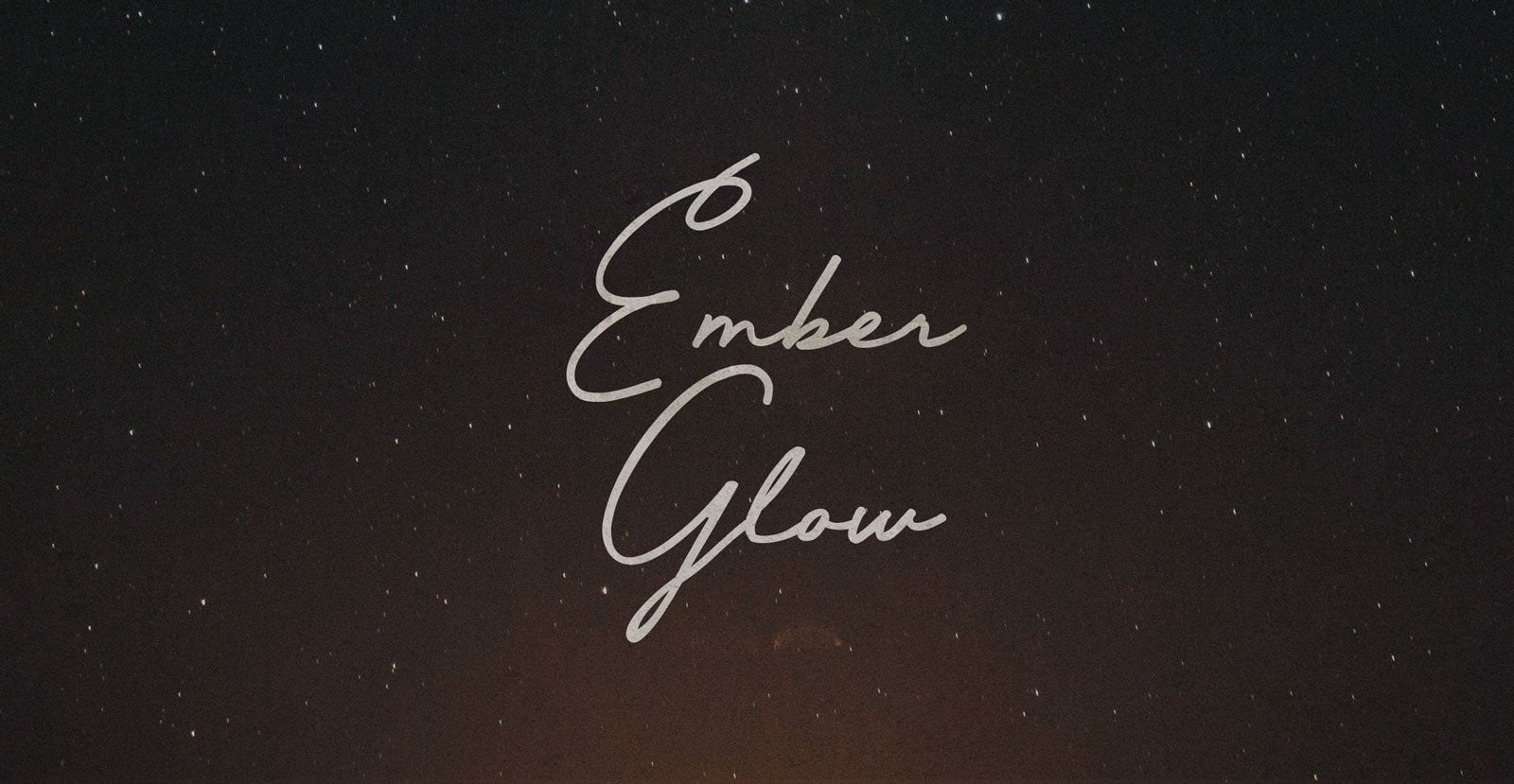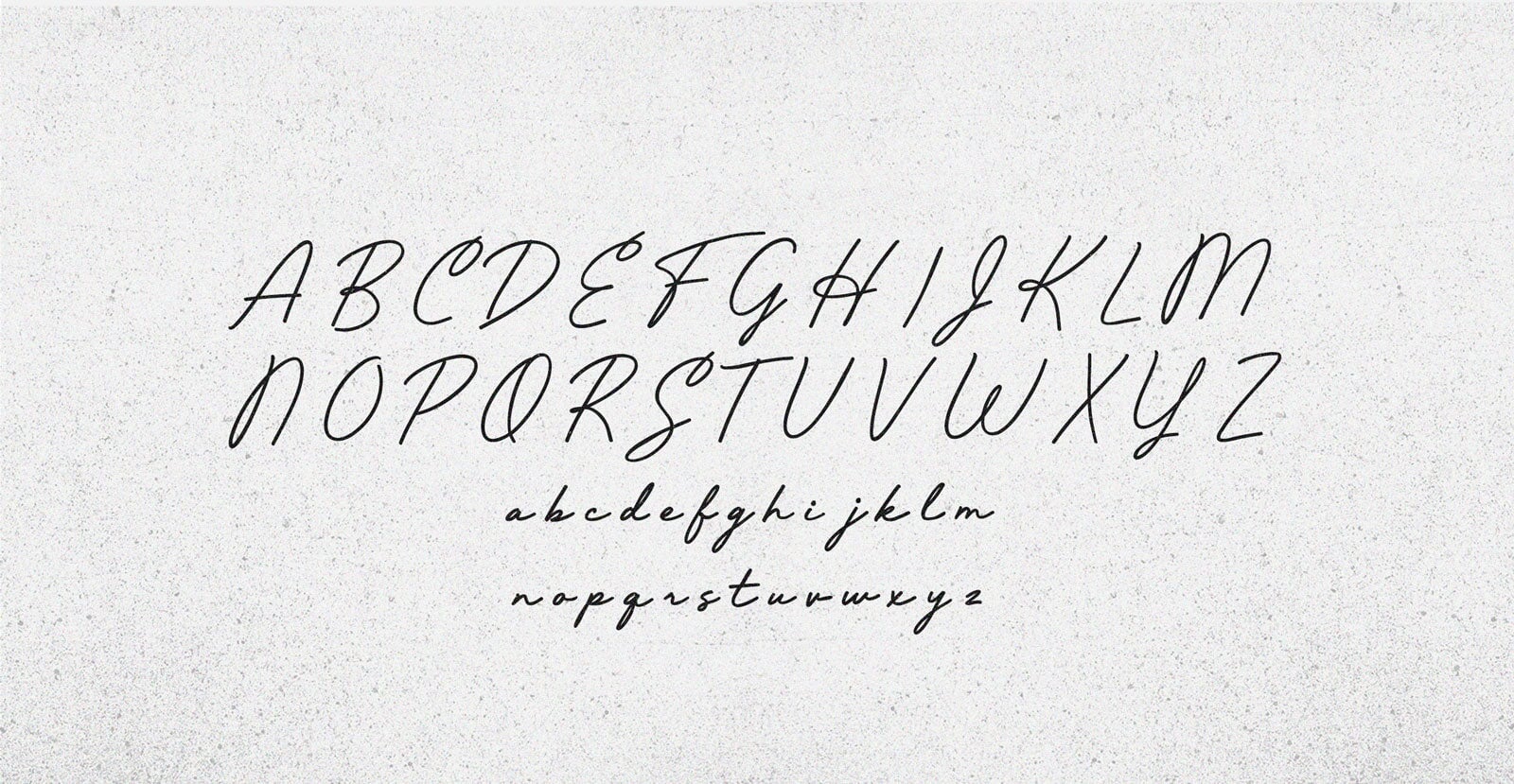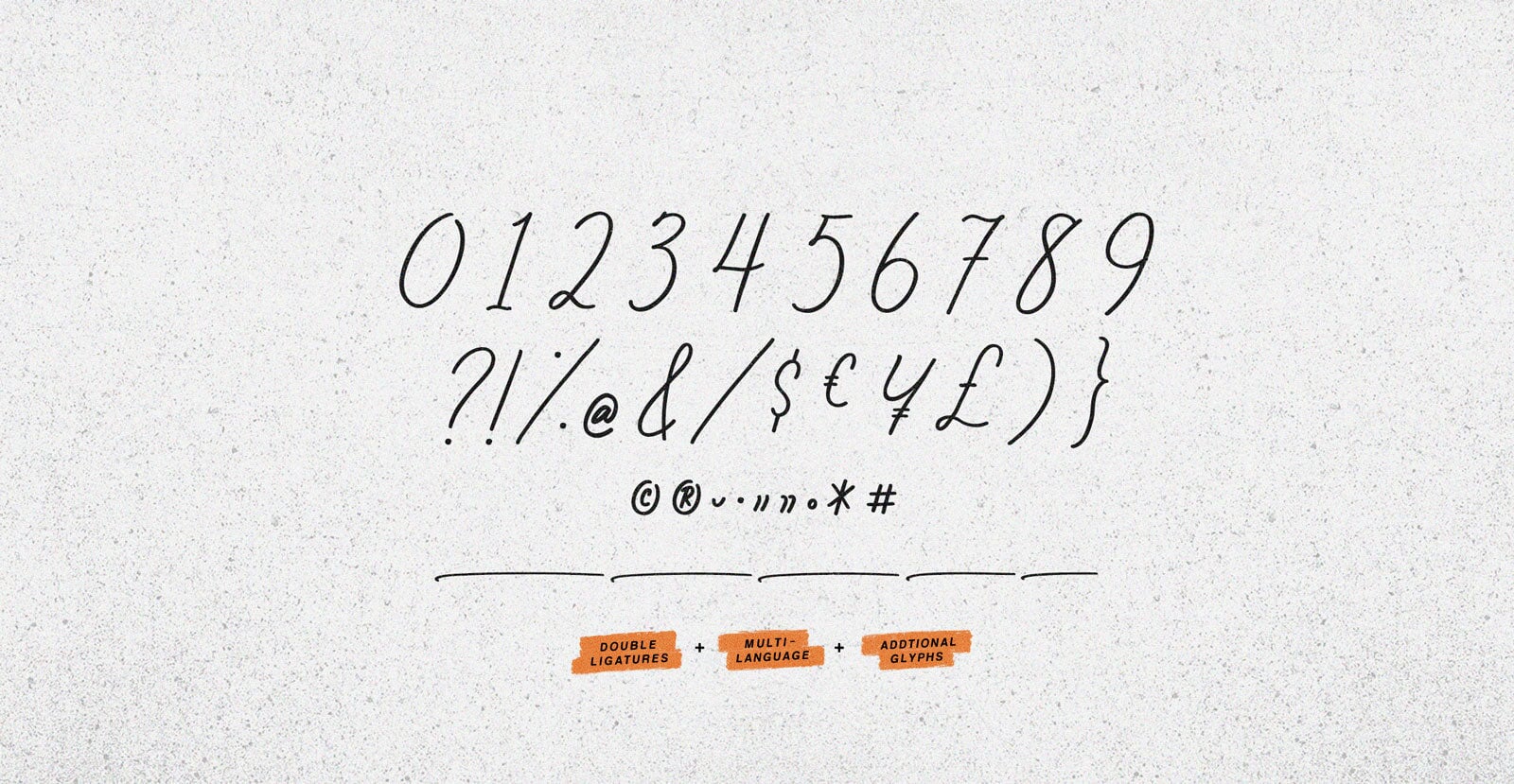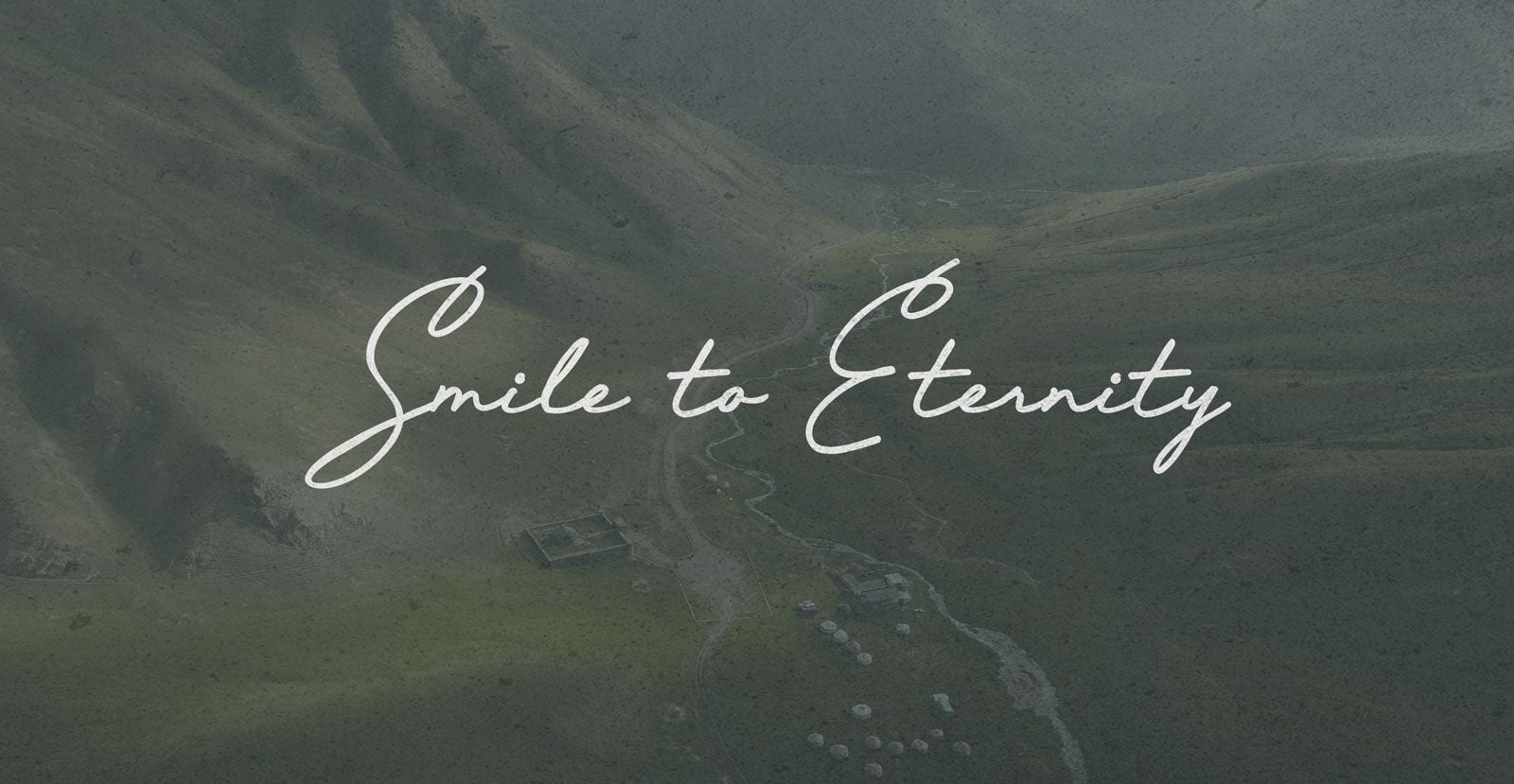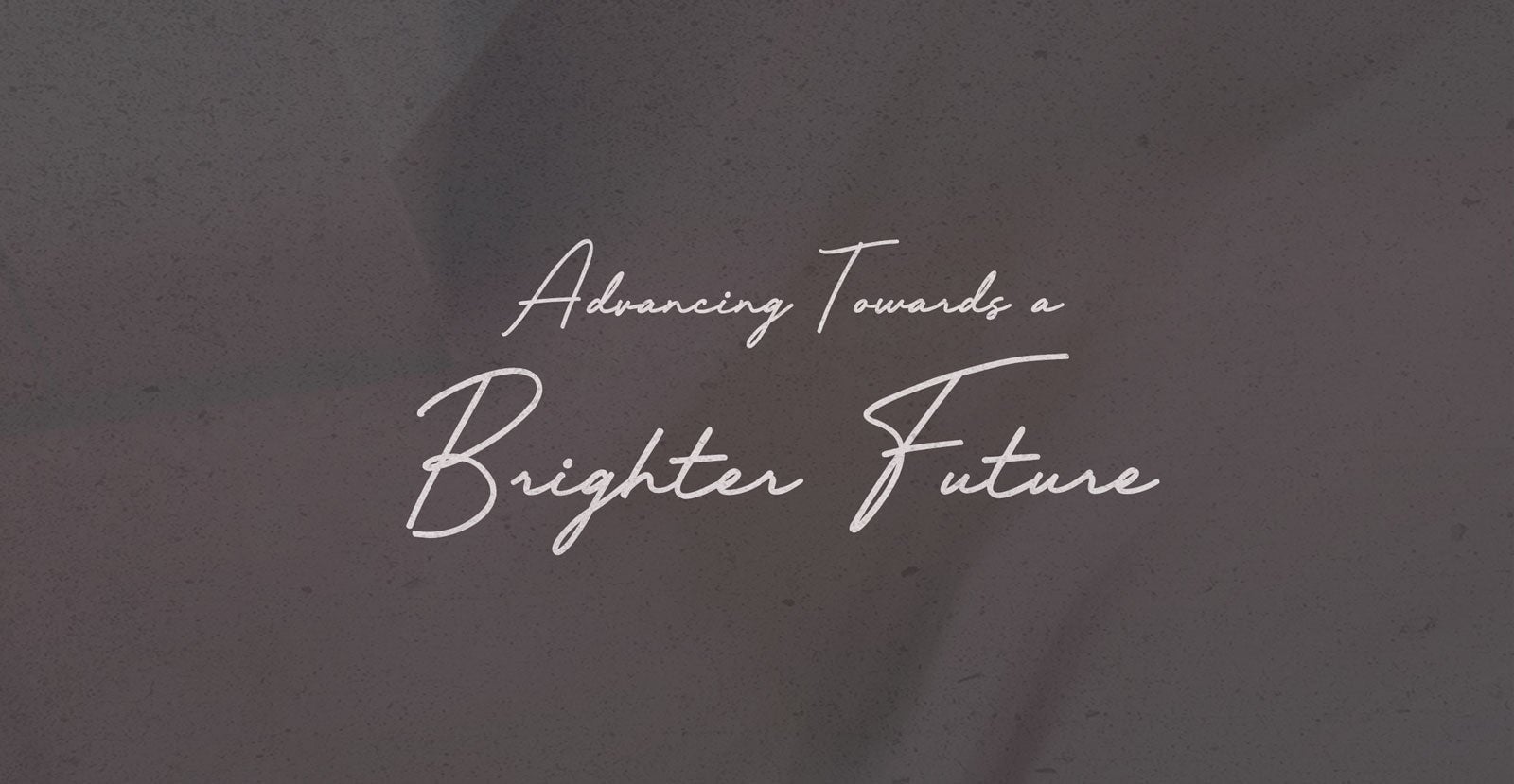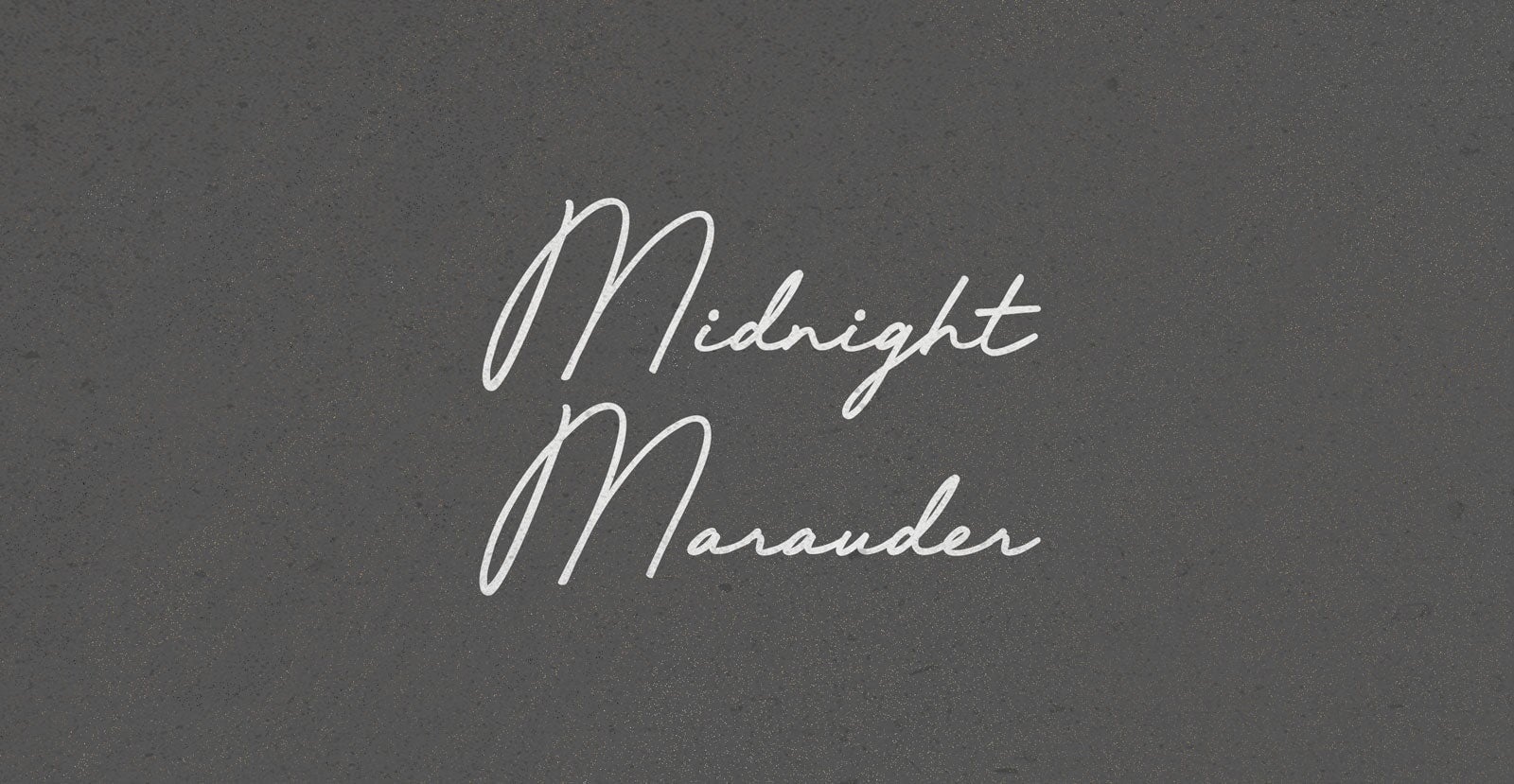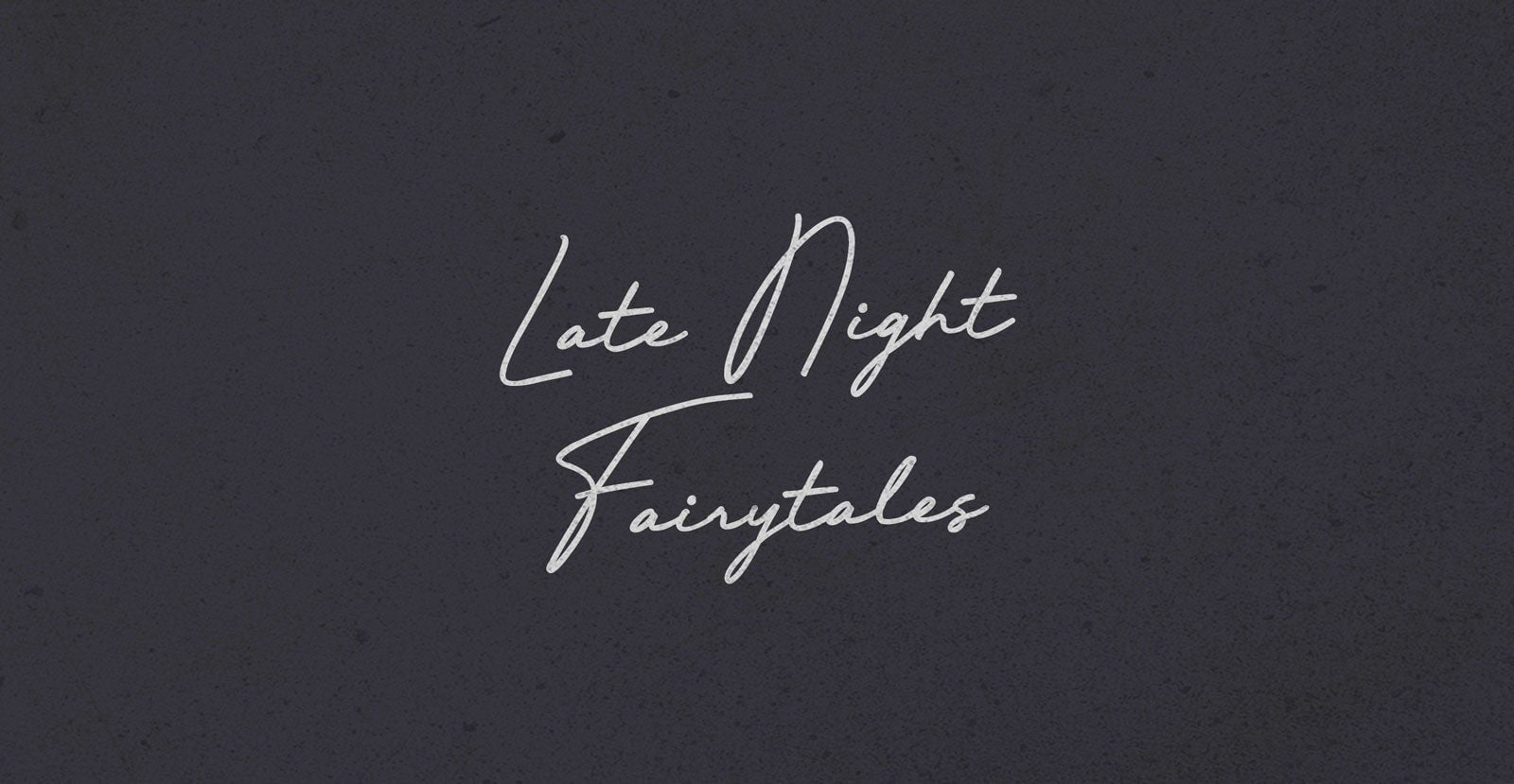
Ember Glow
Ember Glow is the soft light from the remnants of a star, gently illuminating. A gentle glow, much like light bending in a gravitational field. It symbolizes the energy and the passage of time, offering a glimpse into the wonders that shape our existence.